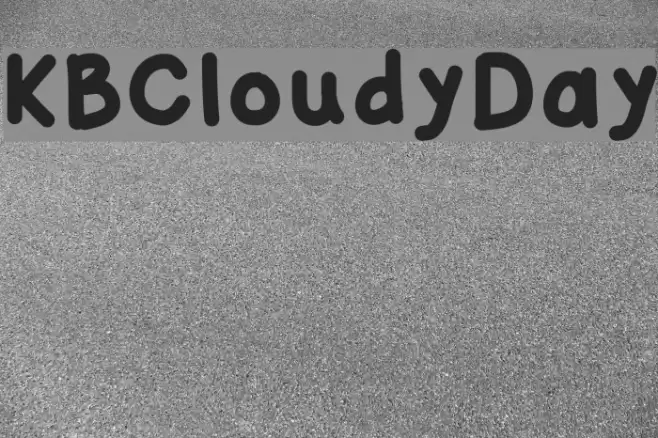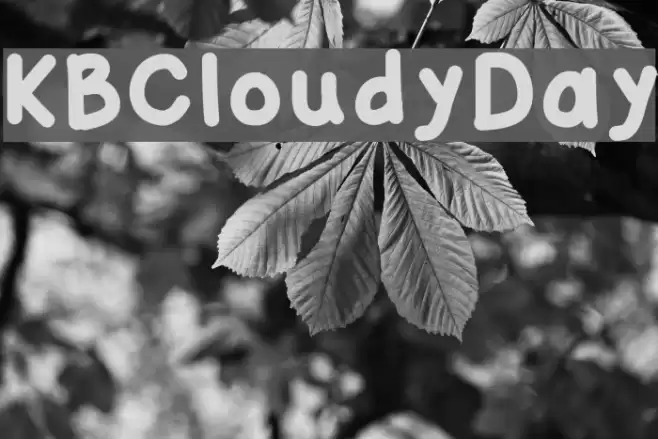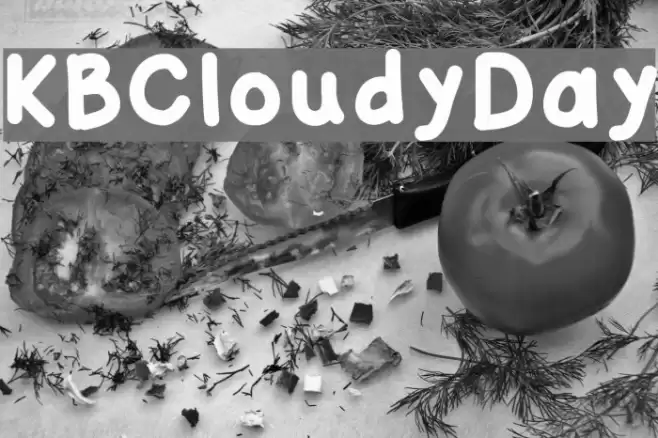
KBCloudyDay Font
KBCloudyDay Description
This playful and rounded font exudes a friendly and approachable vibe, characterized by its bold and bubbly letterforms. The strokes are consistent in width, giving it a uniform appearance, while the rounded edges soften the overall look. The characters are well-spaced, ensuring readability, and the font maintains a casual, informal style that is both inviting and engaging. Its whimsical nature makes it suitable for projects that require a touch of fun and creativity, appealing to audiences of all ages.
A playful, rounded font with bold, bubbly letterforms and a friendly vibe from Comic fonts.
- Proposed Projects: Ideal for children's books, playful branding, greeting cards, and casual invitations.
- Overall Style: Playful
- Use Case: Headlines, Logos, Informal Text